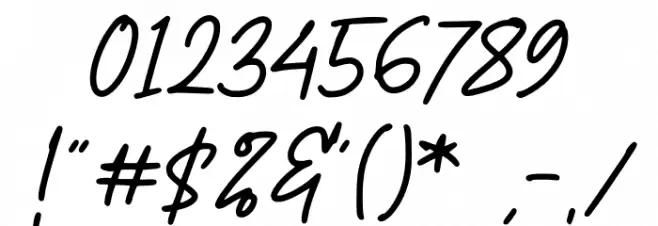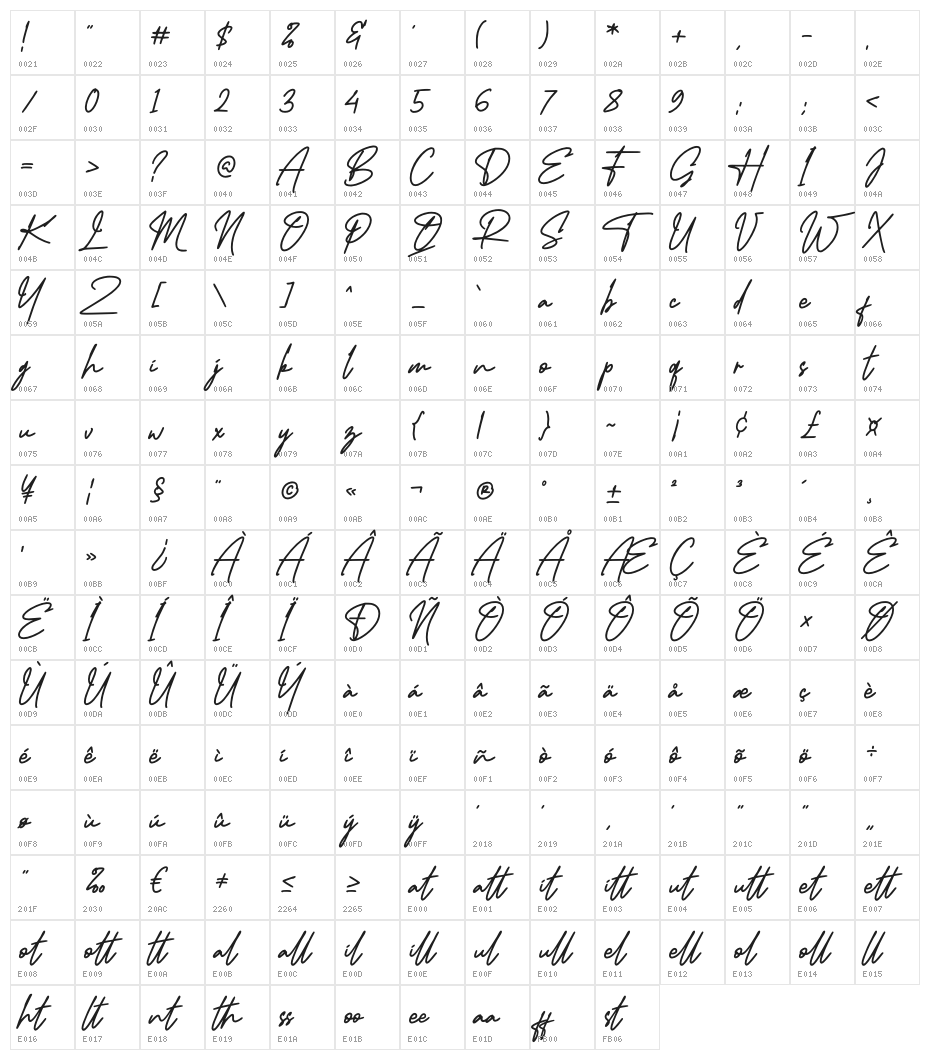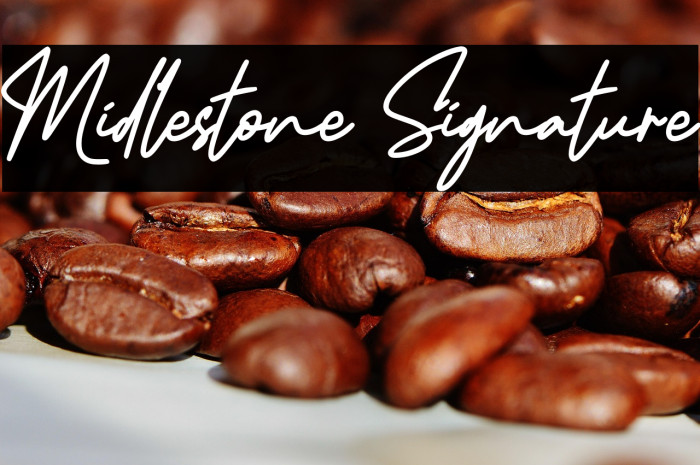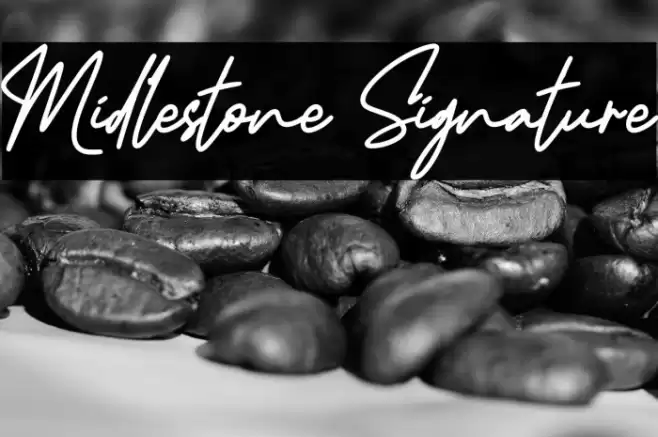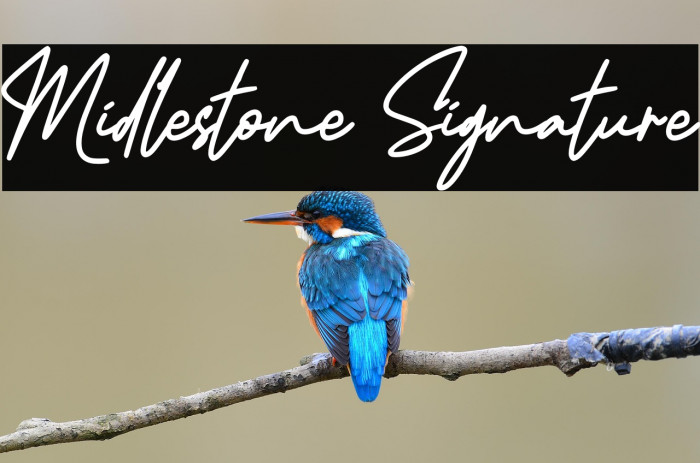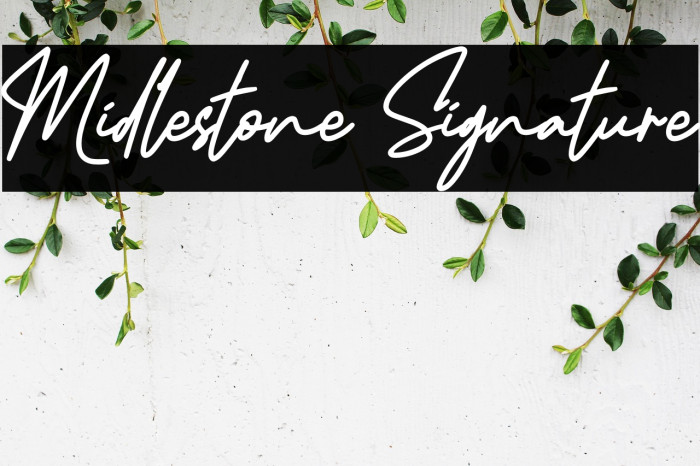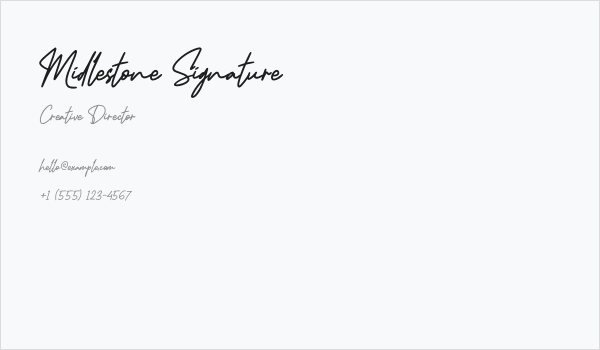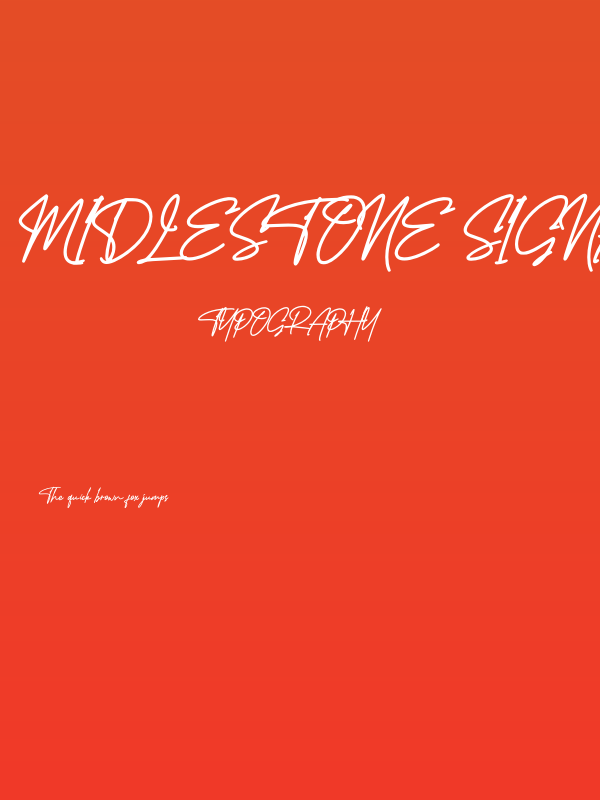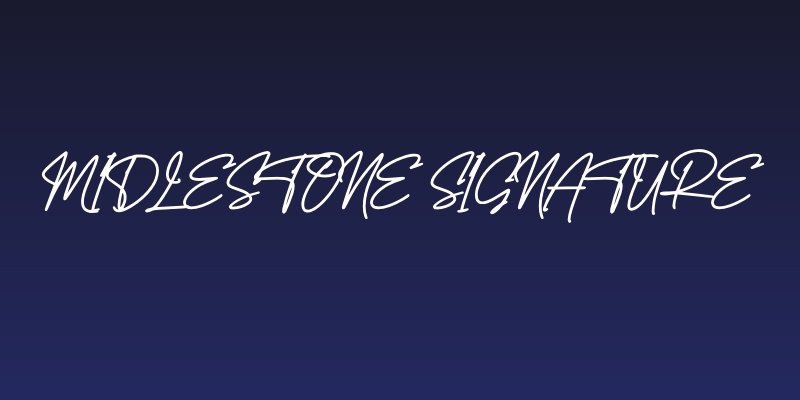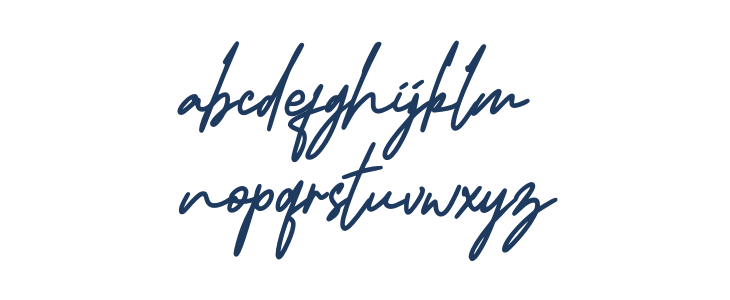
Midlestone Signature Font
Midlestone Signature Description
This font features a dynamic and fluid script style, reminiscent of elegant handwriting. The uppercase letters are bold and sweeping, with a sense of motion and flair, while the lowercase letters maintain a consistent flow, enhancing readability. The numerals are clear and distinct, complementing the overall cursive style. Special characters are designed with the same attention to detail, ensuring they blend seamlessly with the alphabet. This font exudes a sense of sophistication and personal touch, making it ideal for projects that require a handwritten aesthetic.